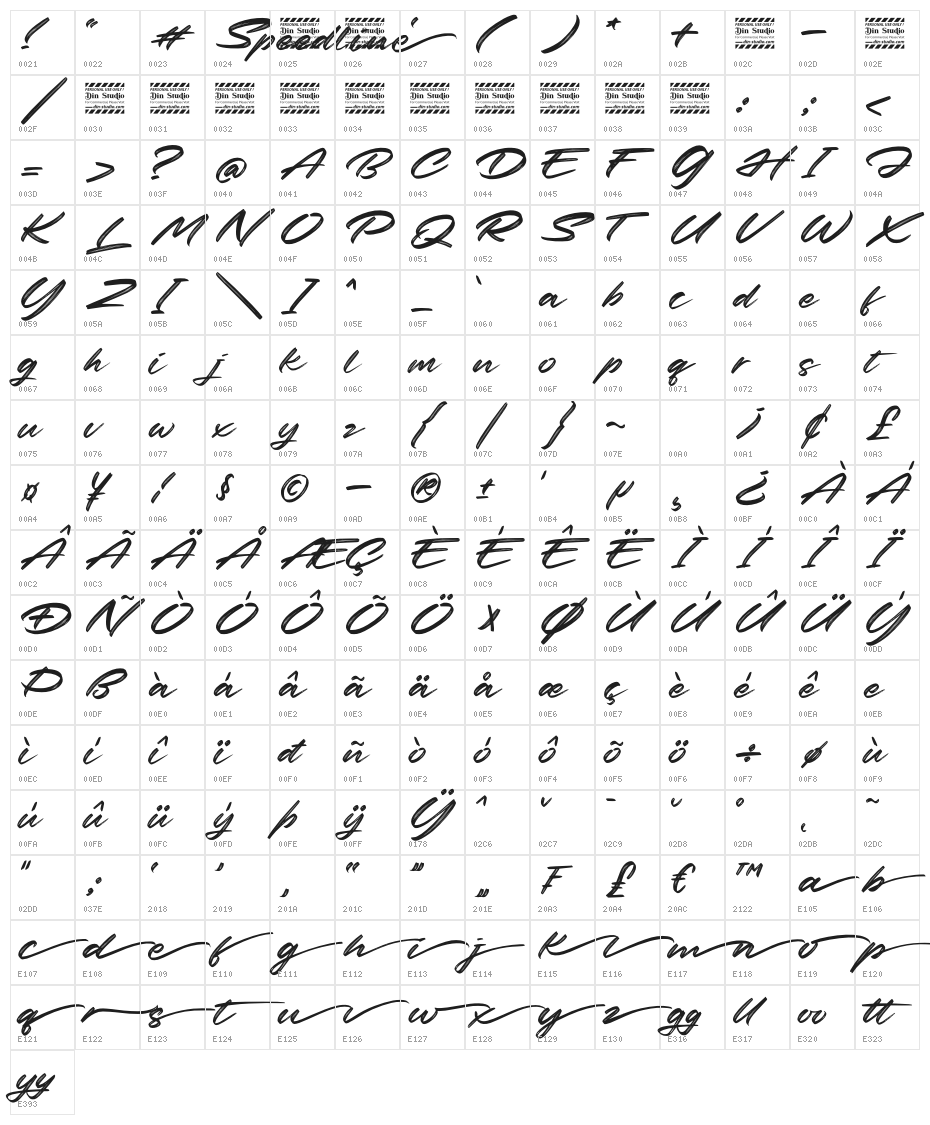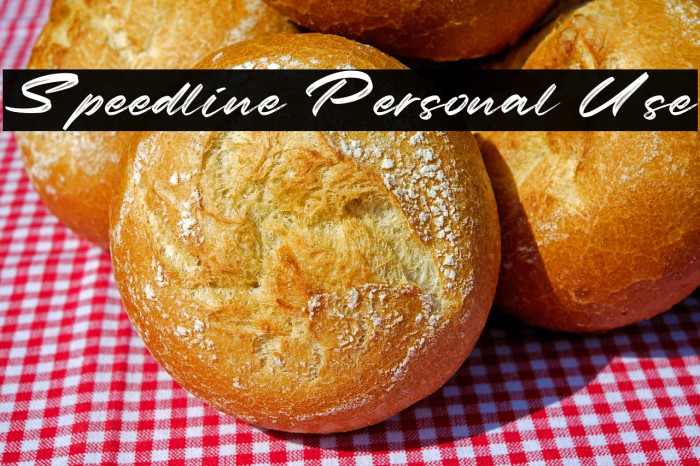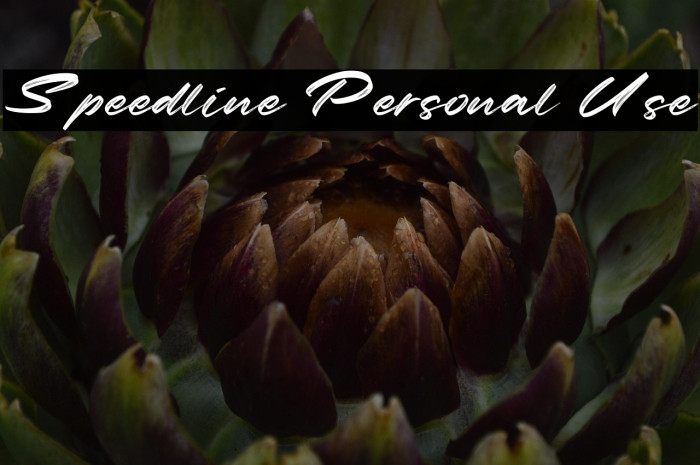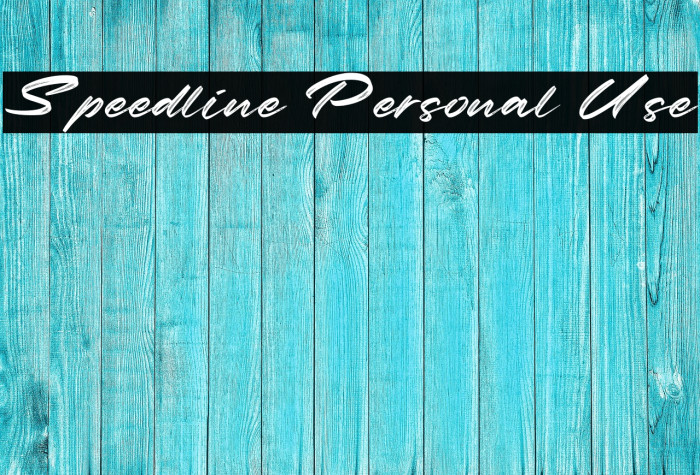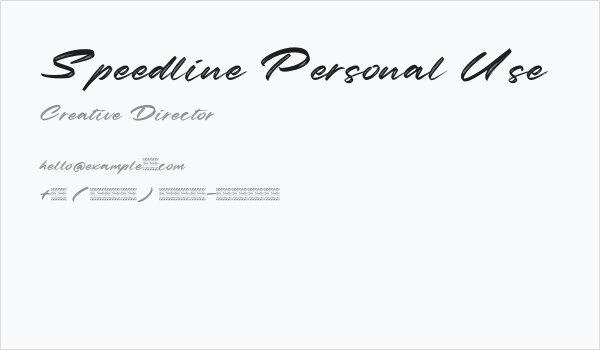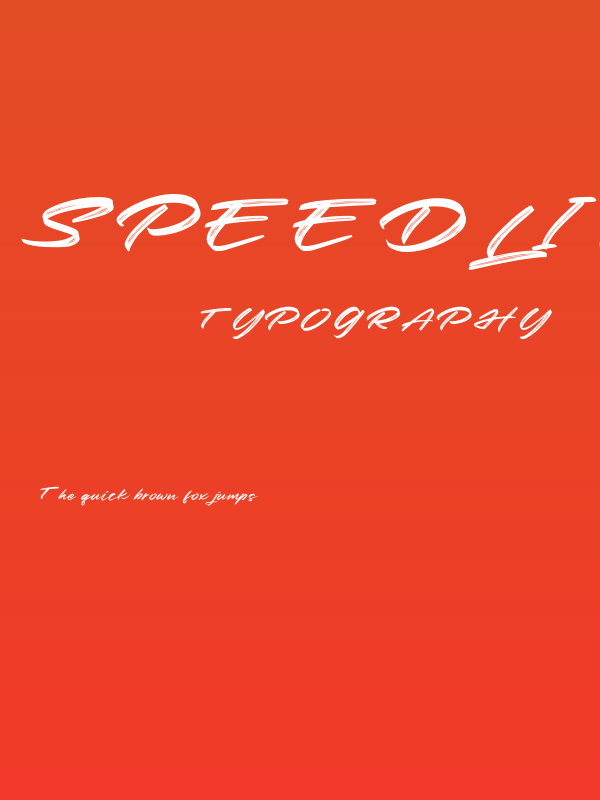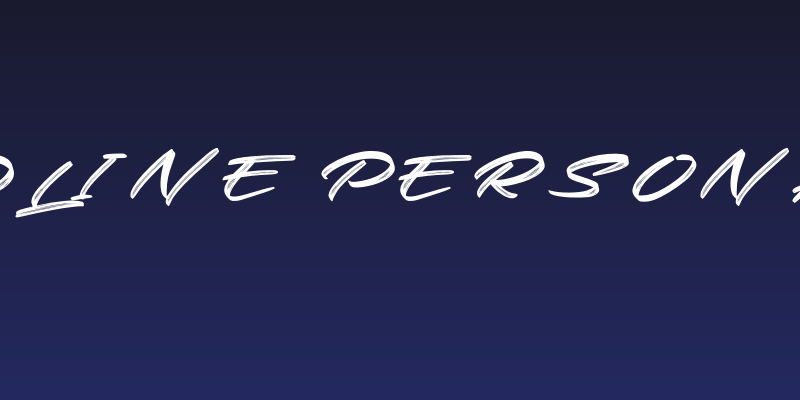
Speedline Personal Use Font
Speedline Personal Use Description
This font features a dynamic and energetic script style, characterized by its fluid and swift strokes that mimic the motion of handwriting. The uppercase letters are bold and slightly slanted, giving a sense of speed and movement. The lowercase letters maintain a consistent flow, with some characters extending below the baseline, adding to the font's lively appearance. The numerals and special characters are designed to match the overall cursive style, ensuring a cohesive look. This font's unique style is perfect for projects that require a personal and informal touch.